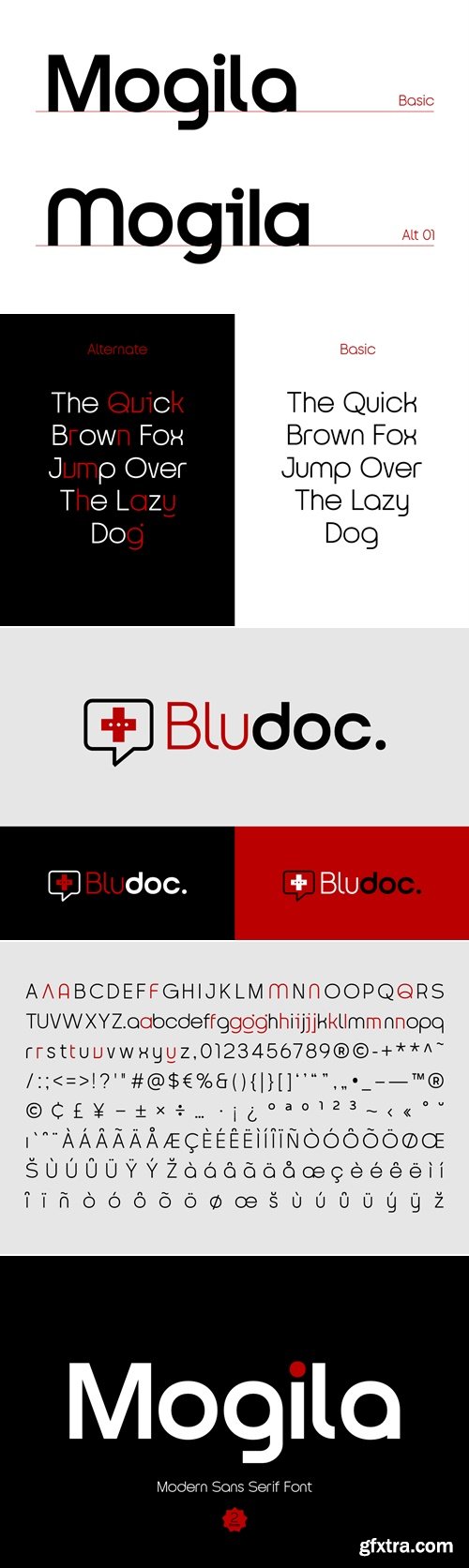
Mogila Font
- The "Mogila" font exudes a clean, modern, and elegant aesthetic, making it an ideal choice for logo and branding purposes. With two weight options, Regular and Light, this font offers versatility and sophistication. Its sleek and minimalistic design allows for seamless integration into various design projects, ensuring a polished and professional outcome.